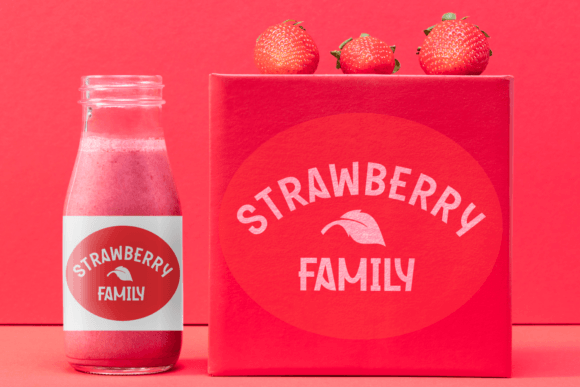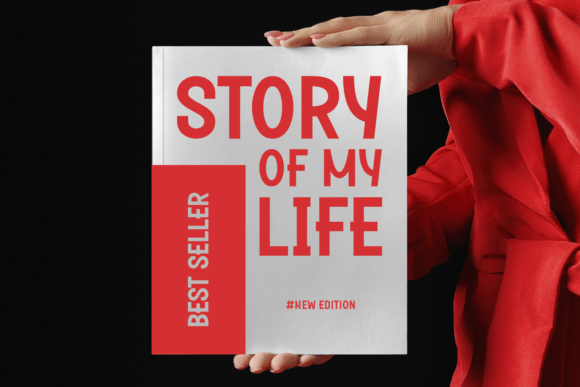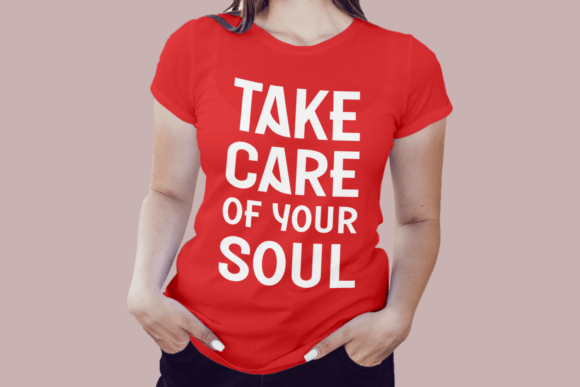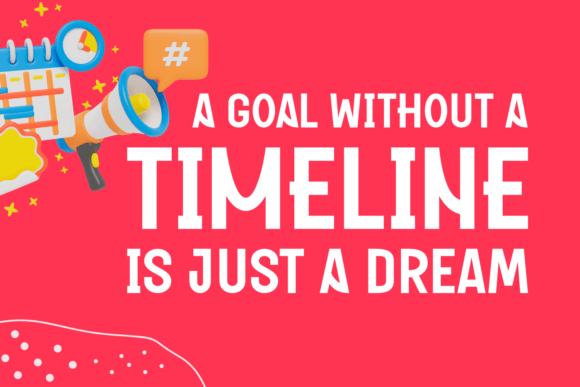
Introduction to Honey Monday Font
Have you ever been stuck on a creative project, staring at a blank page or screen, desperately searching for the perfect font to bring your vision to life? It’s a moment we’ve all been through, and it’s frustrating to say the least. But what if I told you there’s a solution that can save you from this design rut? Enter the Honey Monday Font, a modern sans serif font that exudes elegance and sophistication, perfect for elevating your design game.
This high-quality font is not just a design resource, but a game-changer for designers looking to add a touch of class to their creative projects. With its clean and contemporary look, Honey Monday Font is ideal for a wide range of applications, from product designs and T-shirt logos to wedding invitations and social media posts.
What sets Honey Monday Font apart is its sleek simplicity, making it easy to download and use in your next project. Whether you’re looking for a free download or a premium design asset, Honey Monday Font is sure to impress with its transparent background and versatility.
Key Features of Honey Monday Font
- High-quality design resource ideal for creative projects, including graphic design, digital art, and publishing.
- Features a transparent background, allowing for easy customization and versatility in design applications.
- Comes in a range of sizes, including standard font sizes, to accommodate various design needs and requirements.
- Designed with a high resolution, ensuring crisp and clear text rendering, even at large sizes.
- Perfect for designers looking for a unique and eye-catching font to add a creative touch to their projects.
Honest Review: Honey Monday Font
I recently stumbled upon the Honey Monday Font and I must say, it’s a delightful addition to my design resources. ✨ The font is perfect for any creative project that requires a unique and playful touch. With a free download available, it’s easy to incorporate into your design workflow.
One of the standout features of the Honey Monday Font is its versatility. The transparent background makes it easy to layer over images or other design elements, giving you endless possibilities for creative expression. Whether you’re working on a branding project or a social media graphic, this font is sure to add a touch of whimsy and personality.
- Unique and playful design style
- Perfect for creative projects and branding
- May not be suitable for formal or professional projects
- Limited character set (may require additional fonts for more complex text)
Overall, I’m thoroughly enjoying the Honey Monday Font and I think it’s a great addition to any designer’s toolkit. While it may not be the most formal or professional font, it’s perfect for creative projects and adding a touch of personality to your designs.
Tips for Getting the Most Out of Honey Monday Font
To get the most out of the Honey Monday Font, experiment with different font sizes, colors, and styles. The font’s unique characteristics make it a great choice for creative projects, so don’t be afraid to think outside the box.
Common Use Cases for Honey Monday Font
The Honey Monday Font is a versatile font that can be used in a variety of creative projects, including branding, marketing materials, and editorial designs. Its high-quality design and transparent background feature make it a great choice for designers who want to add a touch of elegance to their work.